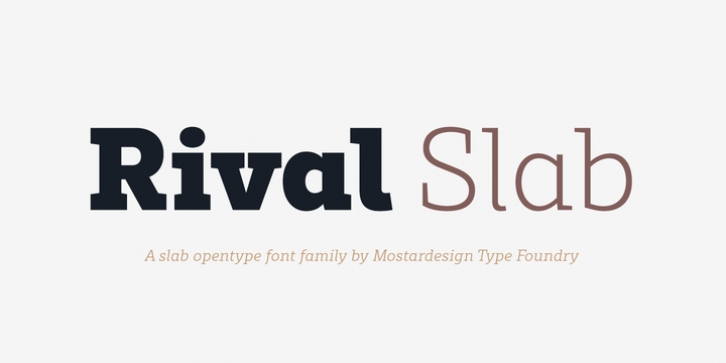
Publisher: Mostardesign
A touch of modernism for all kinds of projects
Like the rest of the family (Rival Sans and Rival Serif), Rival slab has round shapes with bevelled endings on certain letters such as G, Q or Z. These are the characteristics that make Rival Slab a contemporary cast iron for all kinds of projects. It provides advanced typographical support with features such as case sensitive forms, small caps, ligatures, alternate characters, fractions, slashed zero, circled gures, pro kerning…It comes also with a complete range of figure set options